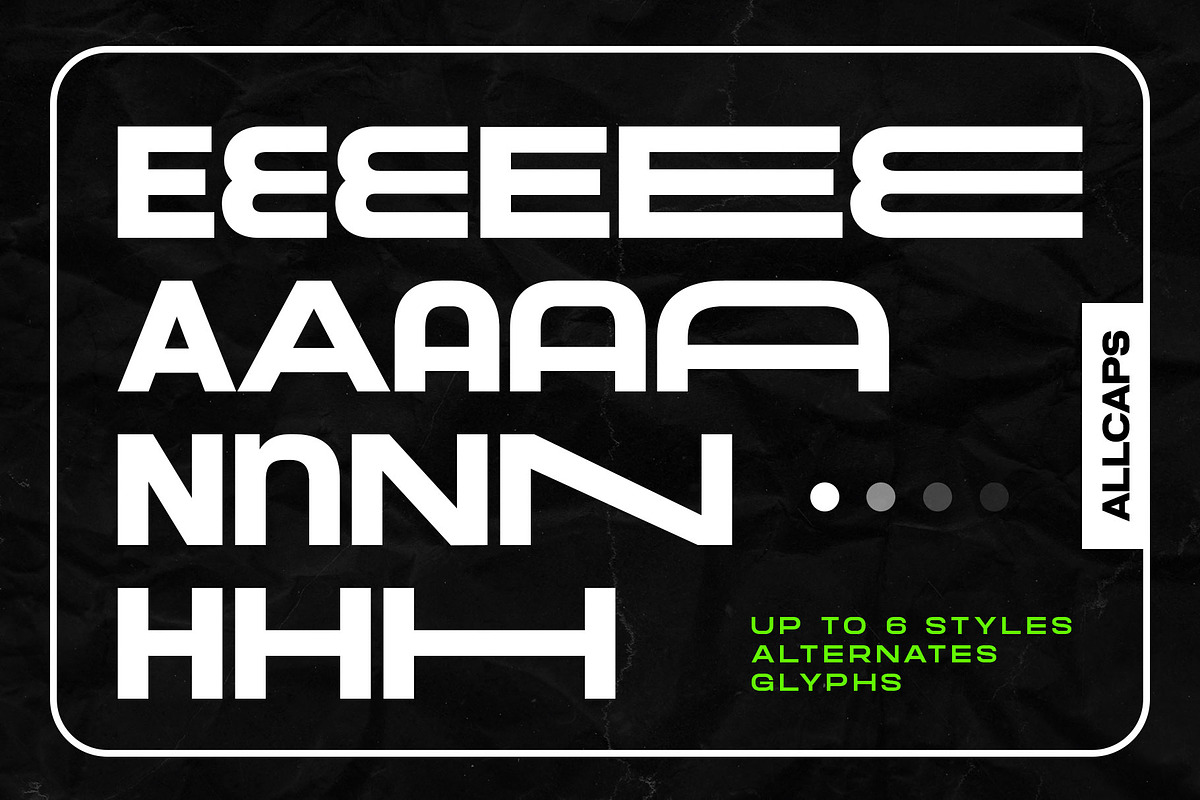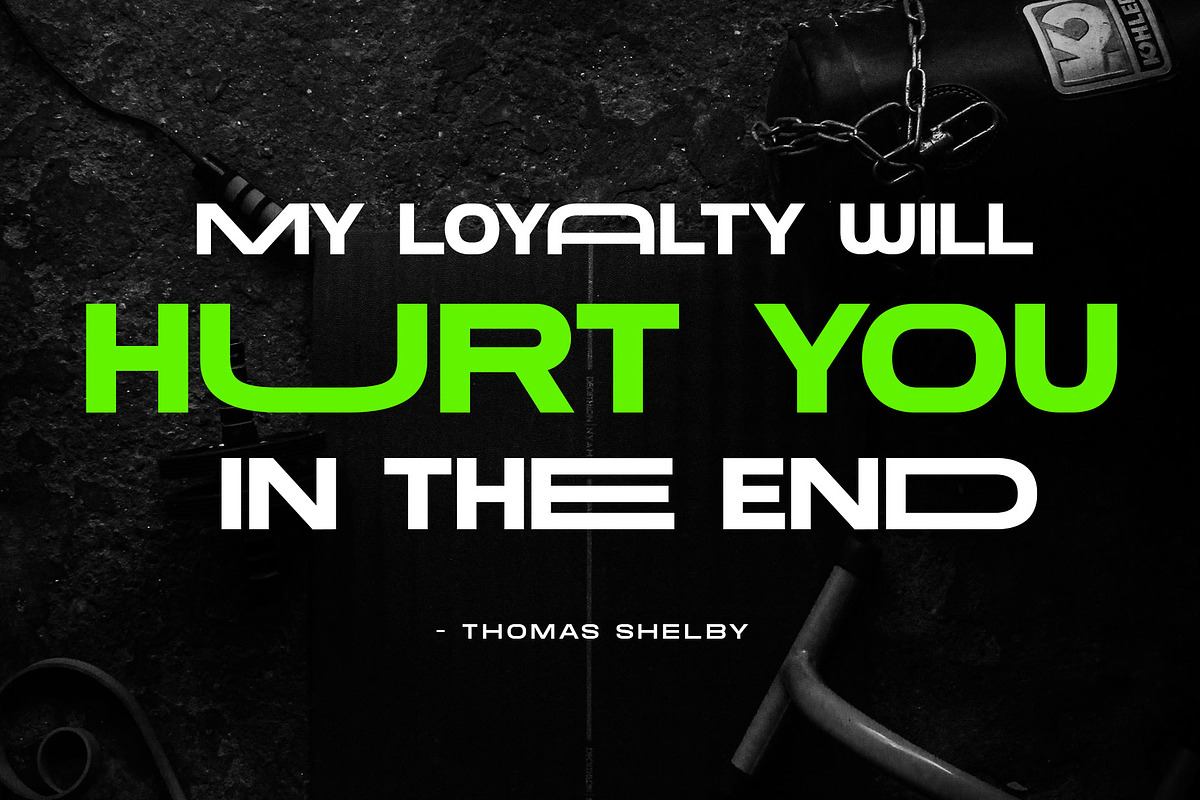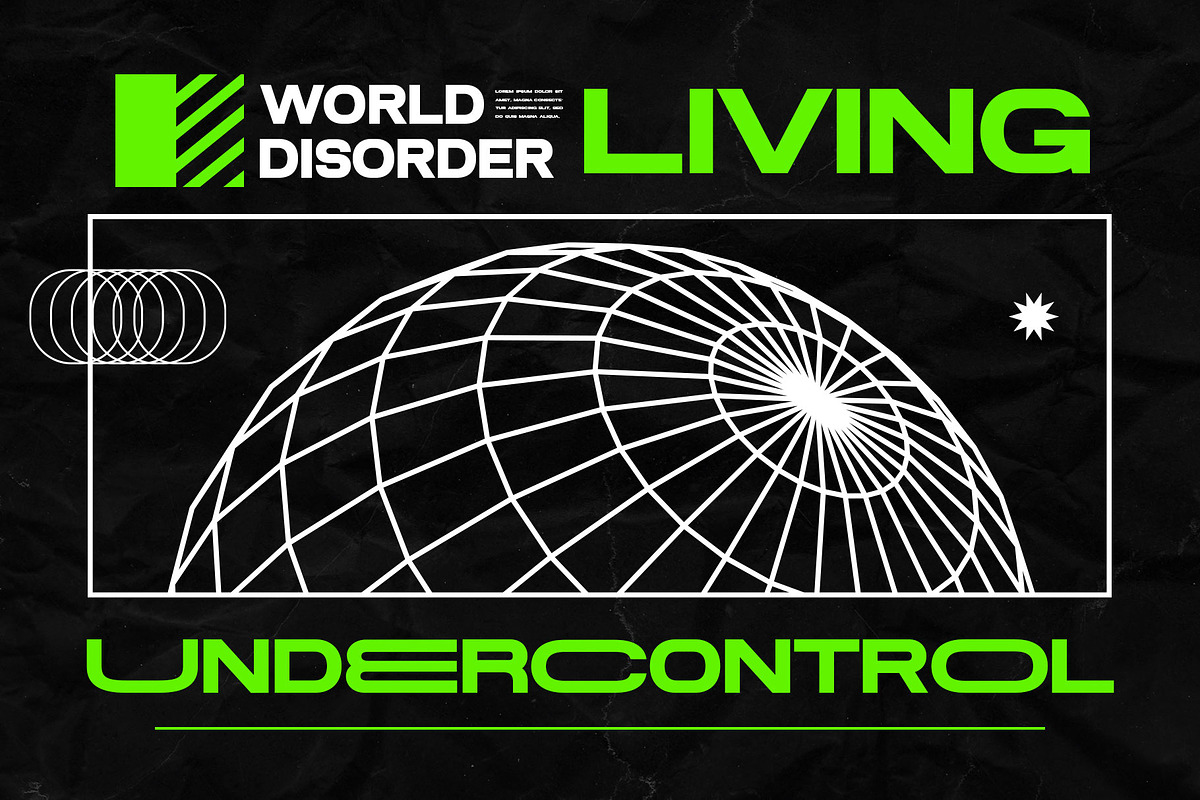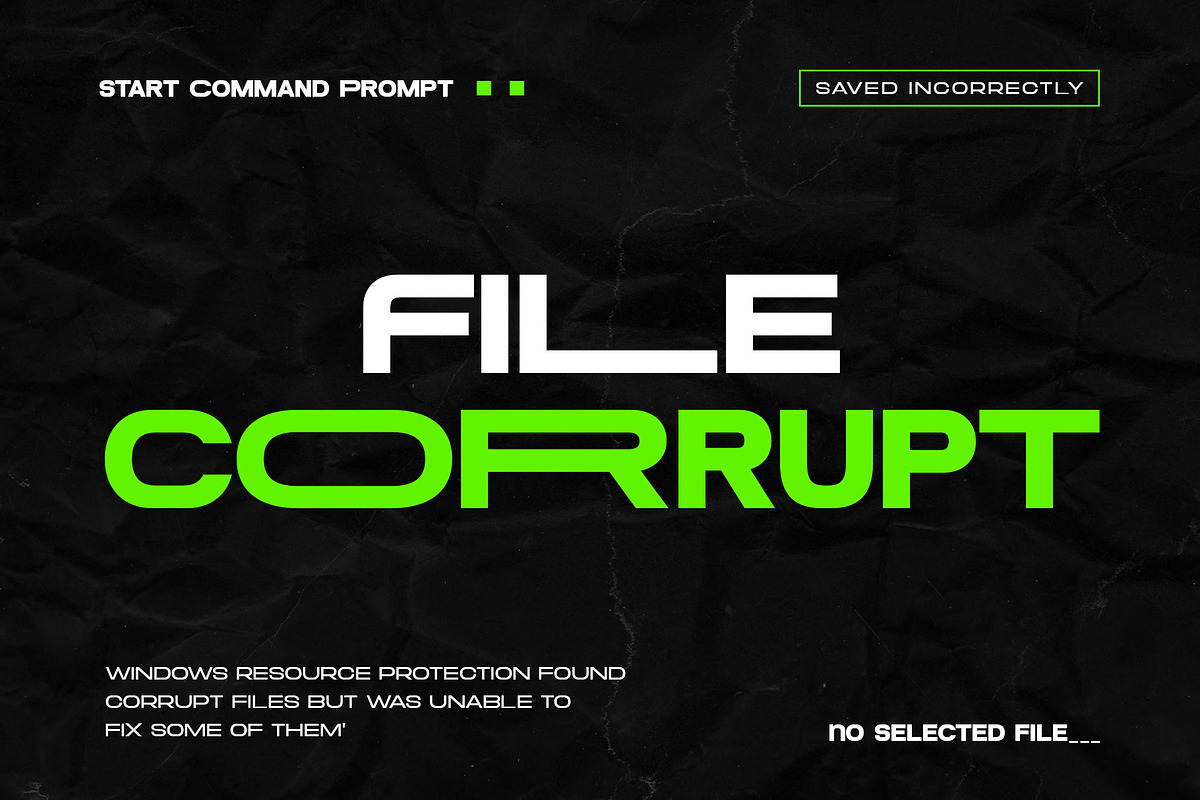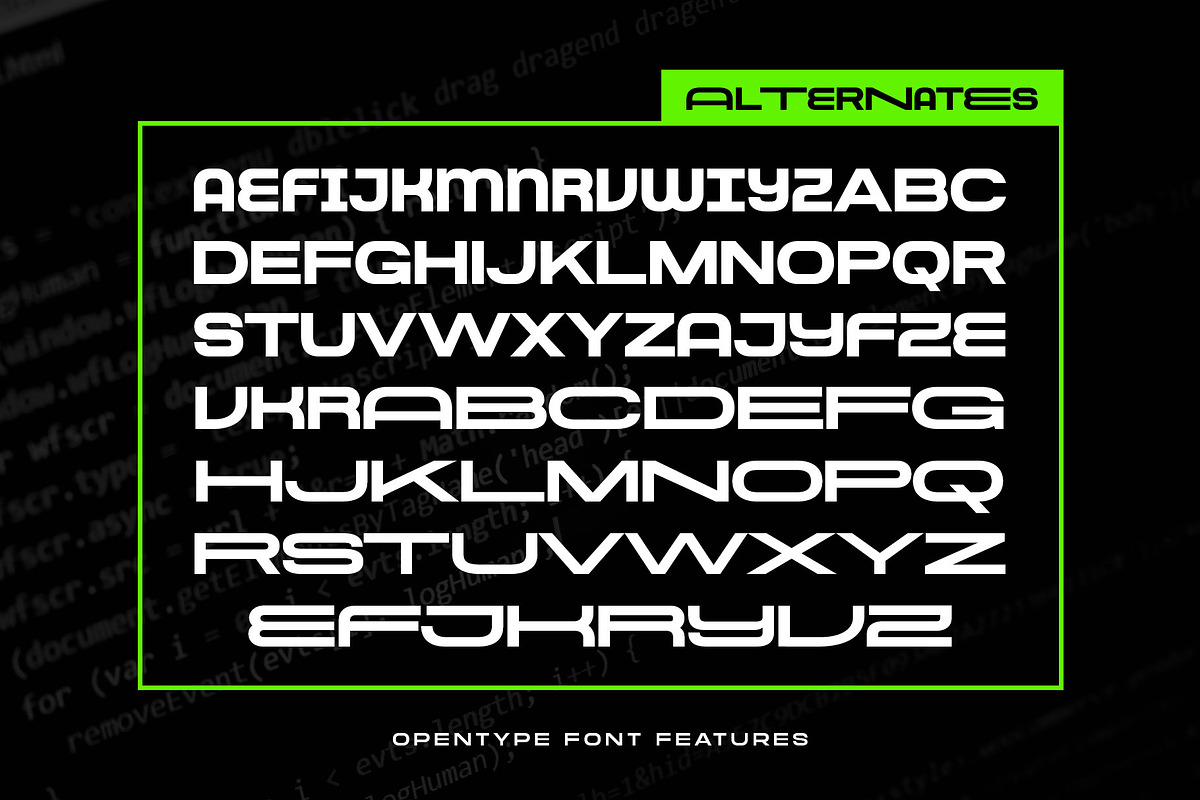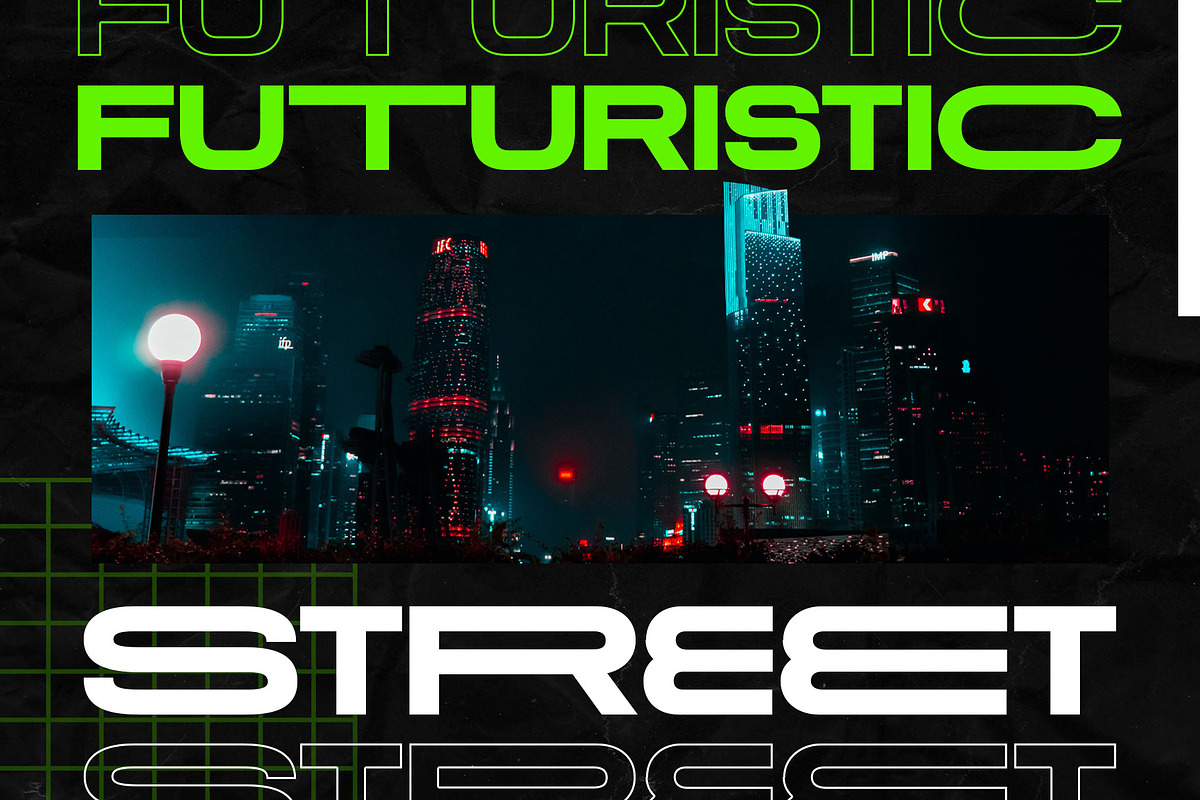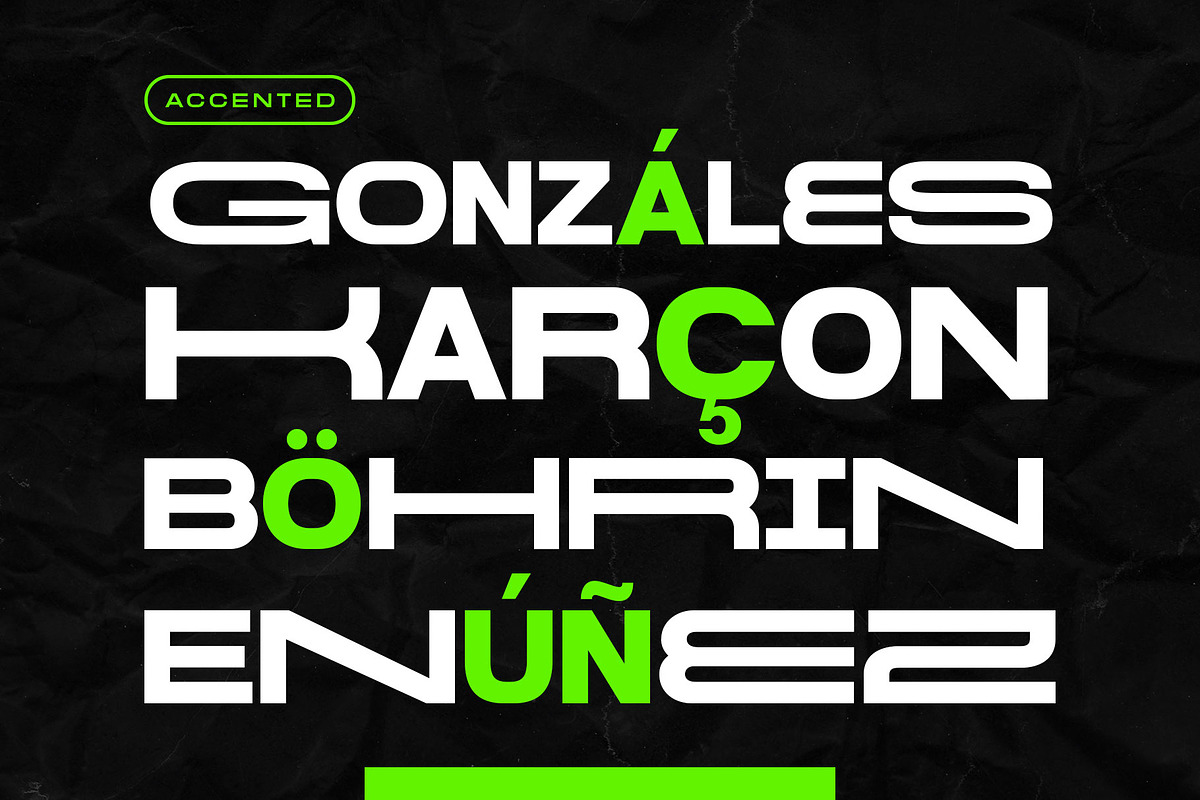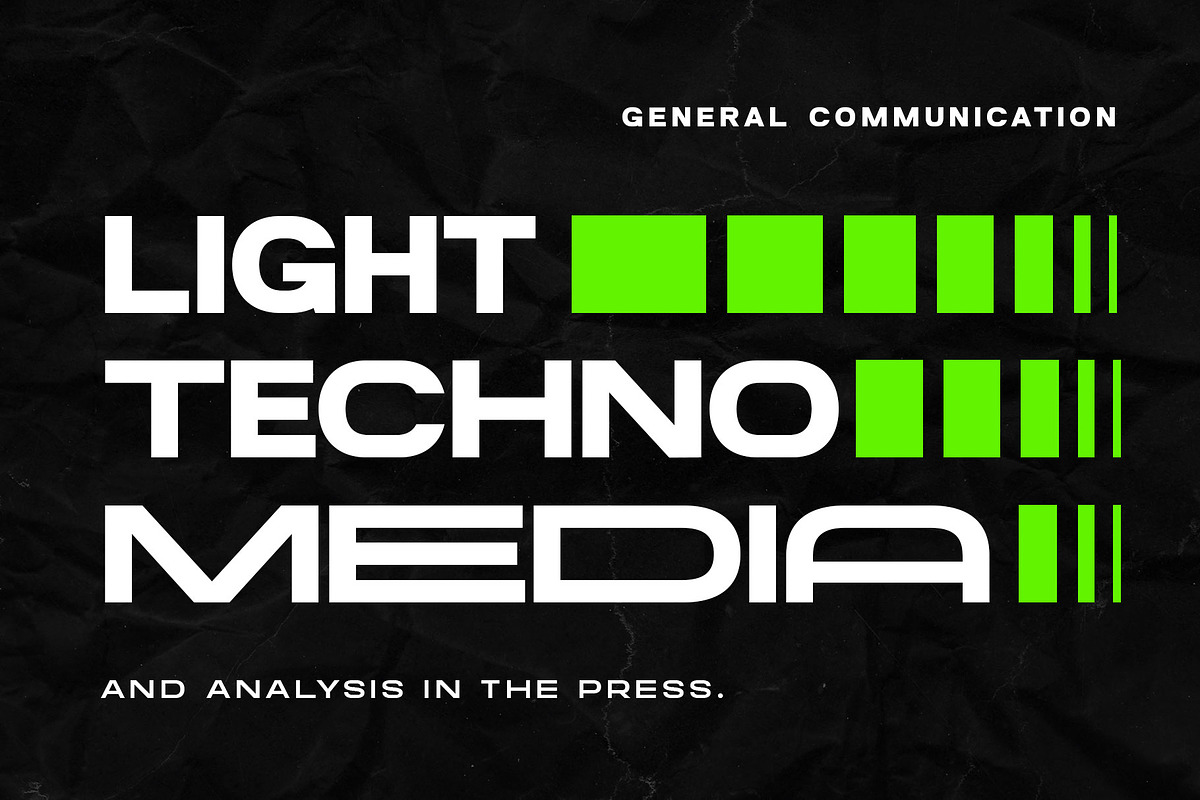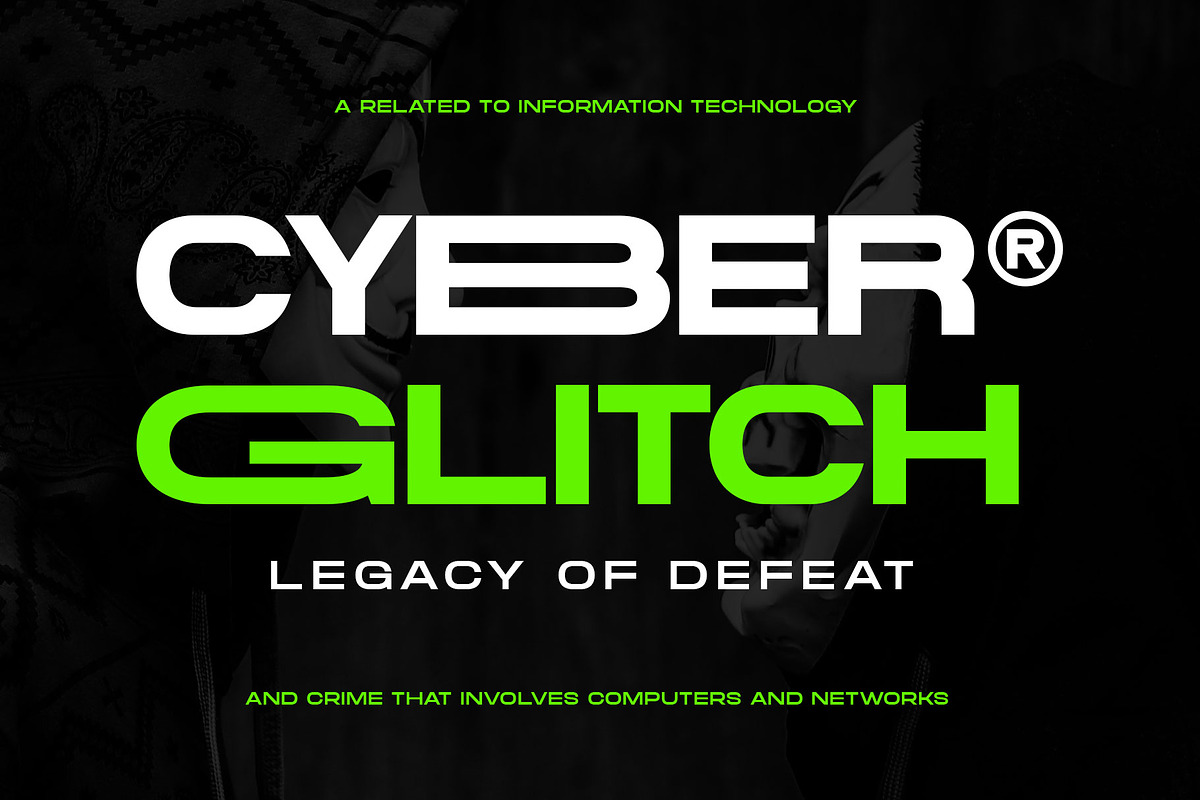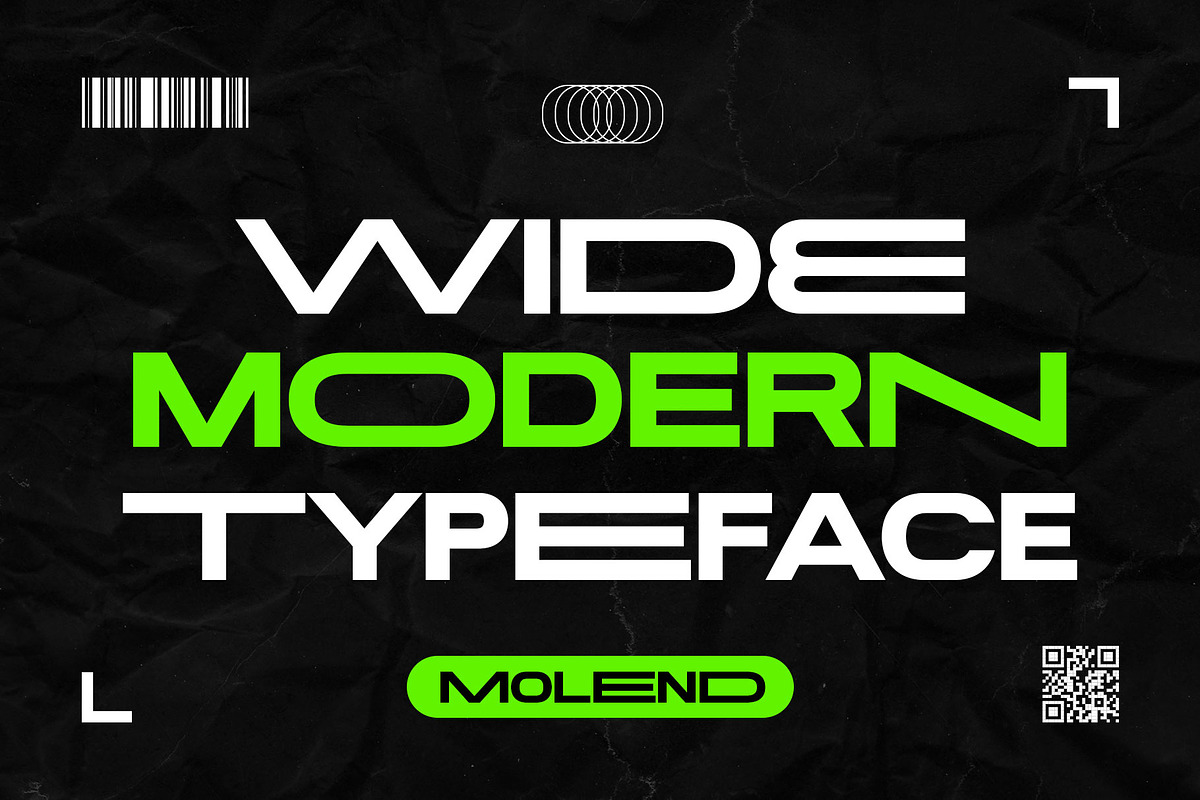
Molend - Futuristic Sans
Introducing Molend - a unique display font that allows you to customize the letter width to create one-of-a-kind designs. With its futuristic, techno, brutalist, and experimental styles. Inspired by kinetic typography and urban style.
This font is perfect for display, headline, magazine, editorial, label, logotype, branding, movie, poster, and short quotes. Molend also features up to 6 sets of special characters, giving you the freedom to mix & match your designs.
With its sans-serif style, Molend is highly versatile and can be used for a variety of projects. Molend is the unique font, customizable letter width and bold style are sure to grab the attention of your audience and leave a lasting impression.
- All capitals characters
- Number & punctuation
- Stylistic alternates
- Stylistic set 01-06
- Multilingual support.